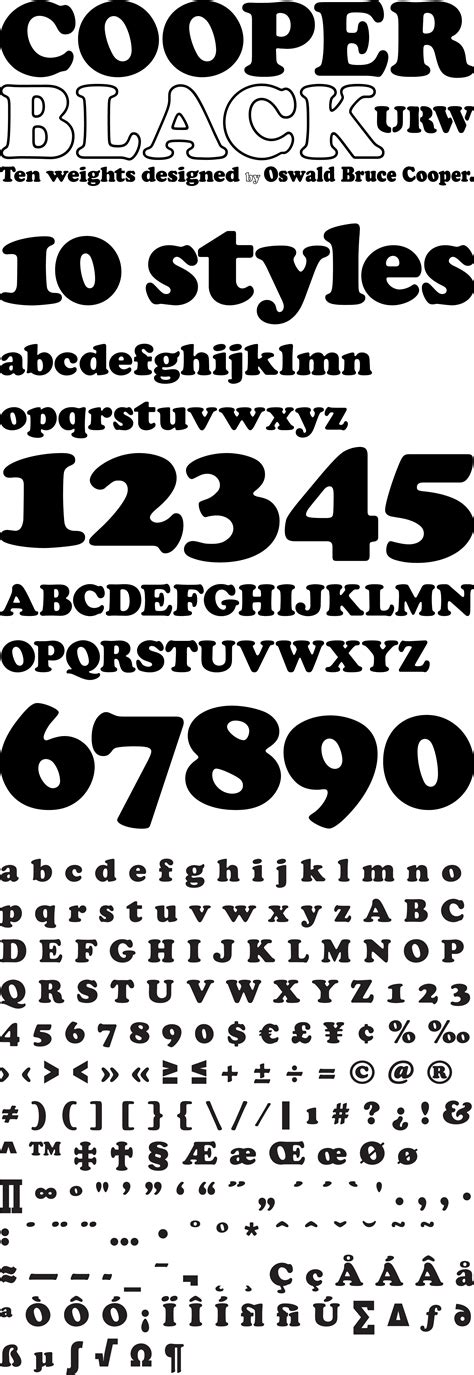
Cooper Black Fonts. Web cooper black font pairings about description cooper black is a very heavy version of cooper oldstyle (also known simply as.
Web cooper black font pairings about description cooper black is a very heavy version of cooper oldstyle (also known simply as.
Web cooper black font pairings about description cooper black is a very heavy version of cooper oldstyle (also known simply as. Web cooper black font pairings about description cooper black is a very heavy version of cooper oldstyle (also known simply as.